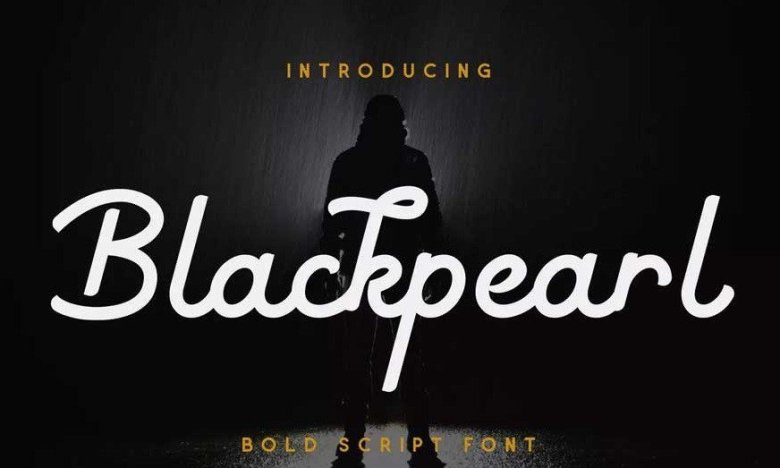
Blackpearl Monoline Script Font
Are you looking for a simple Monoline script font? We can help! Try to download our Blackpearl font.
The font is suitable to use for many purpose.
Try to use it on event, fashion, adventure, photography, branding and signature to see the best of it .